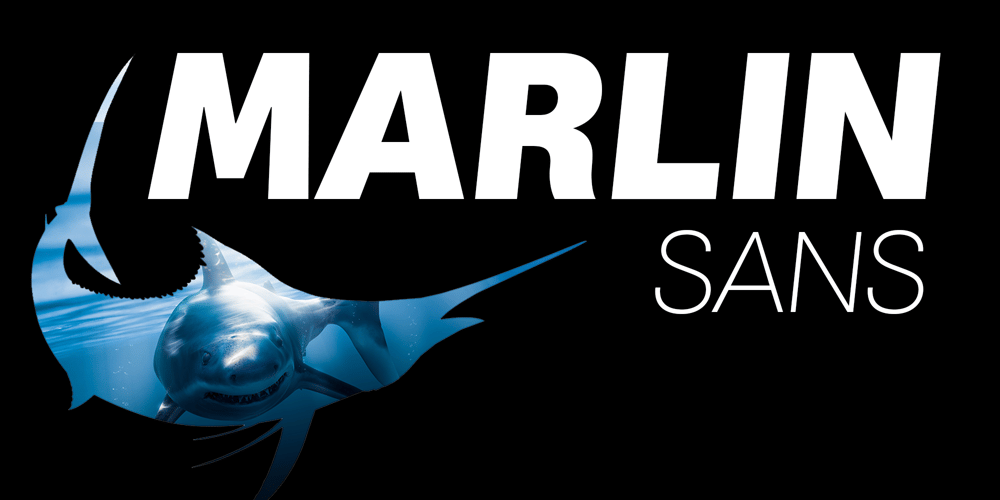
Marlin Sans Font Family was designed by Michael Hagemann and published by FontMesa. Marlin Sans contains 63 styles and family package options. FontMesa is pleased to introduce our latest sans serif type font design Marlin Sans. Ten years ago we set out to make you a good clean multiple weight font family, with each new release our goal was to improve and refine our work making each font family better than the next. It’s been a long journey in creating for you the customer the best product possible. Marlin Sans is FontMesa’s best work yet, it’s spot on perfect, painstaking effort has gone into making sure the letter shapes have been crafted simple and clean the way they should be. Marlin Geo is your classic everyday use sans serif that’s packed with alternate letters that I’m sure you’re going to enjoy. Marlin Sans comes with two sets of italics, the standard 12° italic and a 6° slant version that’s perfect for headlines and signage where you may want the look of an italic with half the slant. Marlin Sans offers two versions, the regular which has round dots, periods and accents and the SQ version which includes square dots, periods and accents. Both versions include the same set of stylistic alternates which you will need an Opentype aware application such as Adobe Illustrator to access the alternate glyphs in Marlin Sans. Within Marlin Sans is one alternate letter that I’m pretty fond of, you’ll notice it right away as a slightly rotated G, I’m sure you’ll find the perfect project to use it on. You’ll also find alternates in Marlin Sans that allow you to go without descenders on the g, j, q, y. Right about now you’re probably wondering what the sets of three lines are for in Marlin Sans? They’re wings, hard or rounded, simply type out a name or word then place a wing on each side or use the center wing with each side wing and layer a word over the top. You’ll also find a Unicase E in Marlin Sans, when creating the uppercase Schwa glyph I thought, well why not flip it over and add it as a Unicase letter which perfectly compliments the geometric style of this font? What about the numbers in Marlin Sans? Does it have oldstyle and tabular figures? don’t worry about it we’ve got you covered. In saltwater fishing the Marlin fish is considered the King of the ocean and a royal symbol in some cultures. So put on your flip flops then explore and discover the possibilities the all new Marlin font family has to offer. This next part is a story I’d like to share with you, it’s about a man named Ric. Six years ago on a warm summer day I was cleaning out my garage and putting junk out on the curb for garbage pick up, a couple of hours went by and a man pulls up in his pickup truck, he gets out and starts looking through my garbage for anything he could sell at a yard sale. I invited him to come back to my garage to see if there was anything else he wanted for his yard sale, he accepted and backed his truck into my driveway. He was a man in his late sixties or early seventies with what appeared to be advanced arthritis in his knees so it took him a while to walk down to my garage. As we where loading items into his truck he asked me what I did for a living, I said that I work in pool construction and design type fonts, the man’s eye light up with excitement, he said I’m Frederic Goudy’s great nephew, I was named after my uncle, Goudy is my middle name but you can call me Ric. Frederic Goudy Bendel is his name aka Ric Bendel, Ric is a jazz musician in the Chicago area, he came by for a couple more weekends and helped me clean more junk out of my garage. I wish I had more time to sit and talk with Ric, however, care giving for family was still a big part of my life at the time. I like to dedicate Marlin Sans to Ric Goudy Bendel, thanks for helping me clean out my garage. Additional thanks goes to Octavio Pardo and Eben Sorkin for showing me the right way to make multiple weight type fonts. Marlin is a trademark of FontMesa LLC